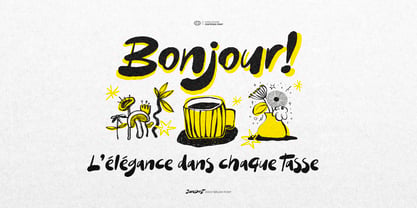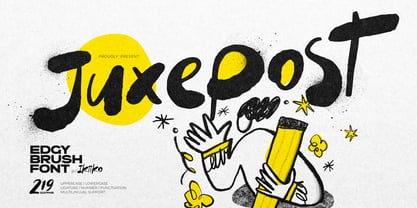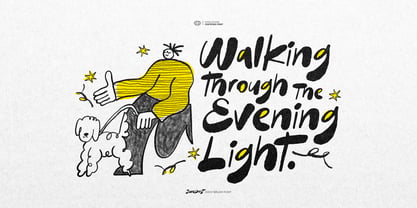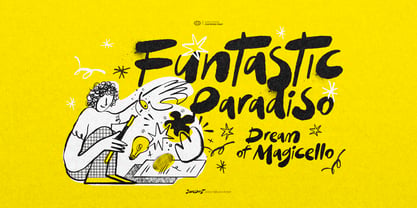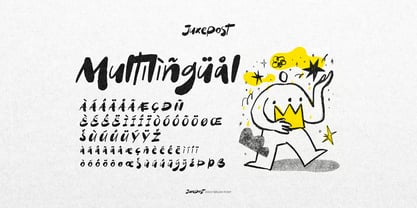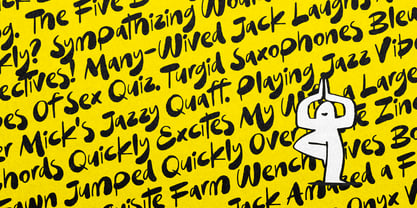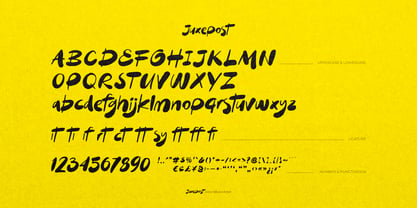
Juxepost
by IKIIKOWRK
The Juxepost Font Family was designed by Andhika Pradana and published by IKIIKOWRK. Juxepost contains 1 styles. More about this family
Proudly Present Juxepost - Edgy Brush Font, created by ikiiko
Juxepost is a fearless handcrafted brush font that captures the spirit of raw expression and unfiltered creativity. Built from bold, imperfect strokes and rich textured ink, this font delivers an organic, artistic look—beautifully imperfect, expressive, and unapologetically bold.
Every letter is filled with energy—dynamic brush pressure, rough edges, and spontaneous forms that bring a strong, expressive voice to your design. Juxepost thrives on contrast and juxtaposition—clean layouts meet expressive strokes, structure meets creative freedom. With its artsy, rebellious character and authentic handcrafted feel, Juxepost transforms every word into a statement—emotive, bold, and impossible to ignore.
This font is perfect for posters, fashion stuff, book covers, movie titles, zines, or anything that needs a strong & expressive typeface.
• Uppercase & Lowercase
• Ligature
• Numbers & Punctuation
• Multilingual Support
Designers: Andhika Pradana
Foundry: IKIIKOWRK